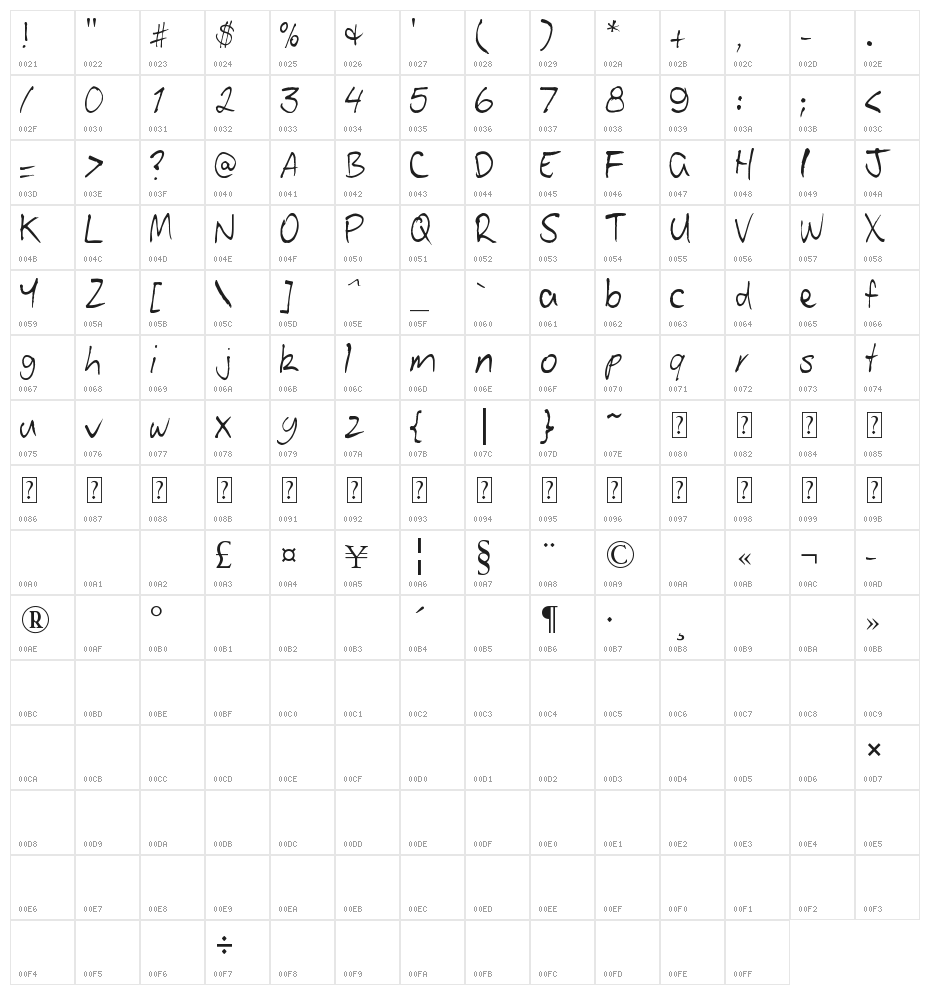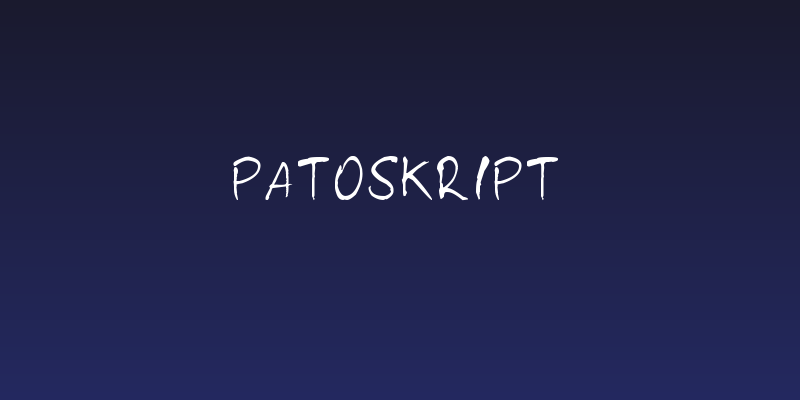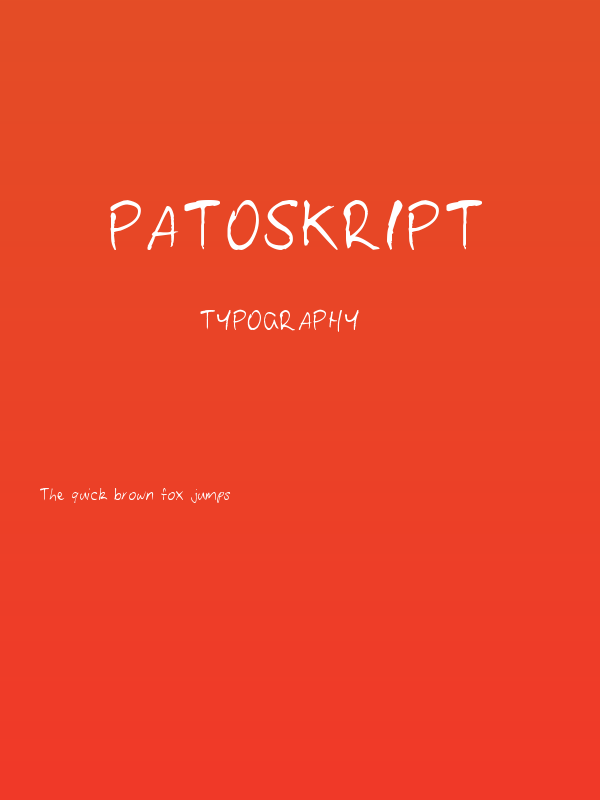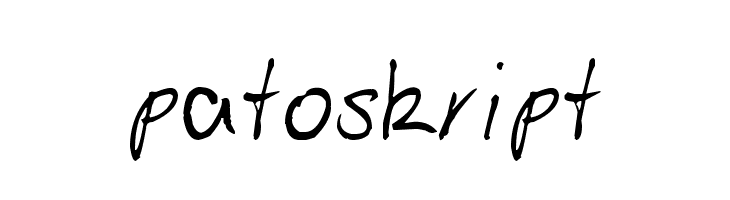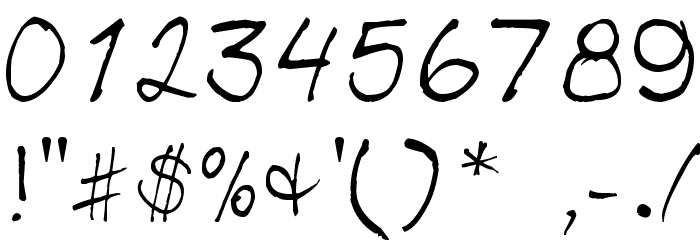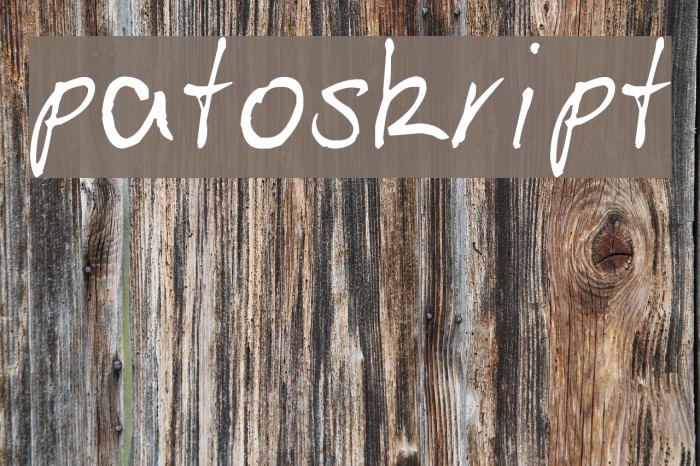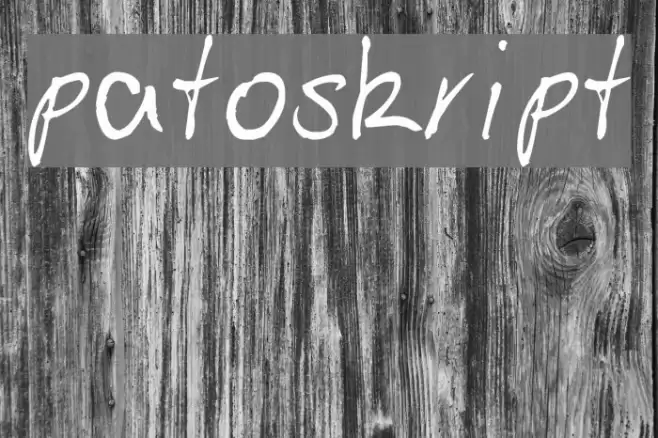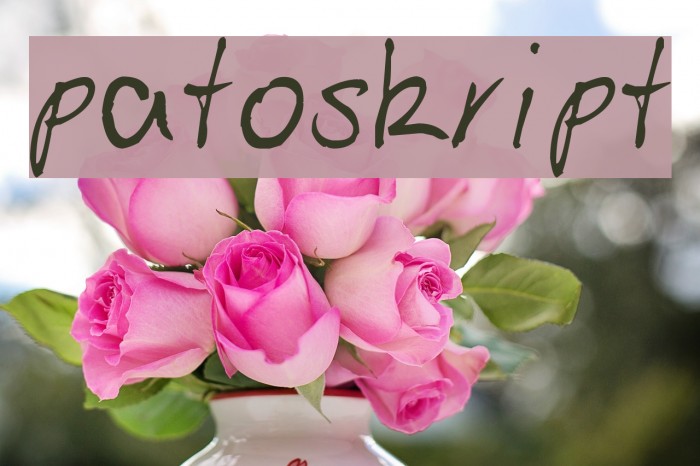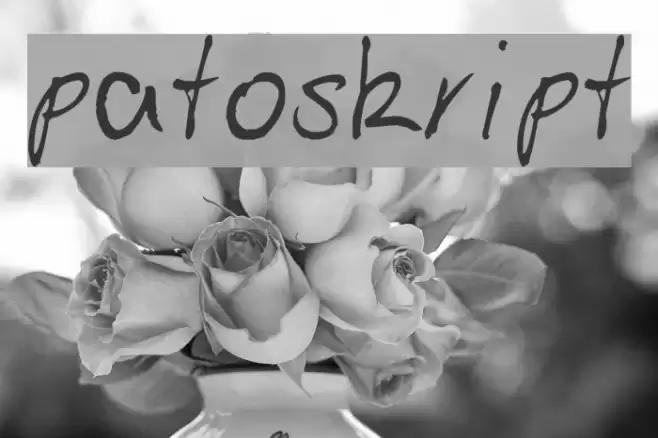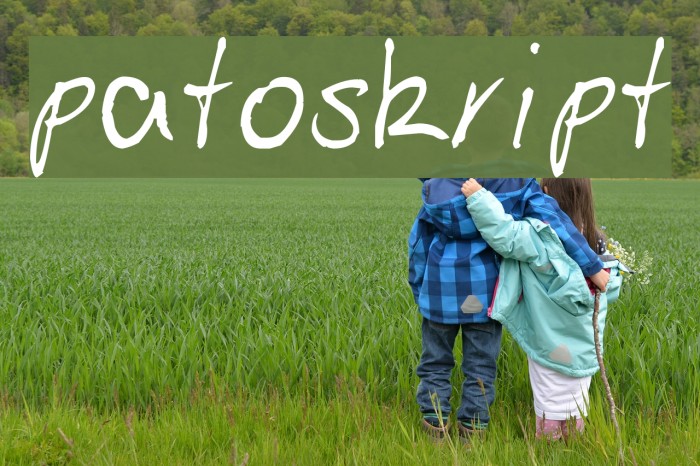
patoskript Font
patoskript Description
This font features a lively and expressive handwritten style, characterized by its irregular strokes and dynamic flow. The letters exhibit a playful and casual appearance, with varying thicknesses that add a sense of movement and personality. The uppercase and lowercase letters maintain a consistent style, while the numerals and special characters complement the overall aesthetic. The font's organic and spontaneous feel makes it suitable for projects that require a personal touch or an informal vibe.
| Overall Style | Casual, Playful |
| Use Case | Headlines, Logos, Informal Text |
| Proposed Projects | Ideal for greeting cards, personal branding, creative posters, and informal invitations. |